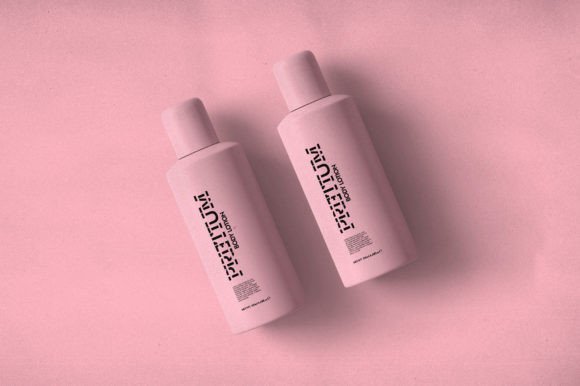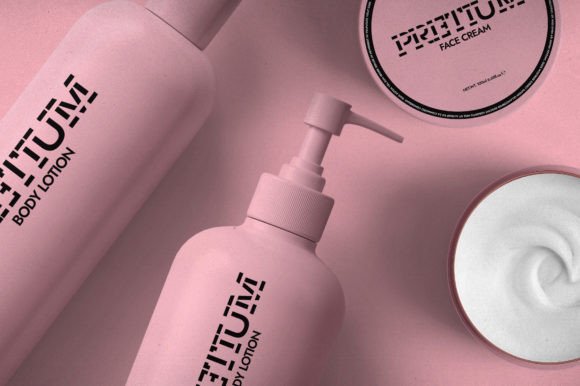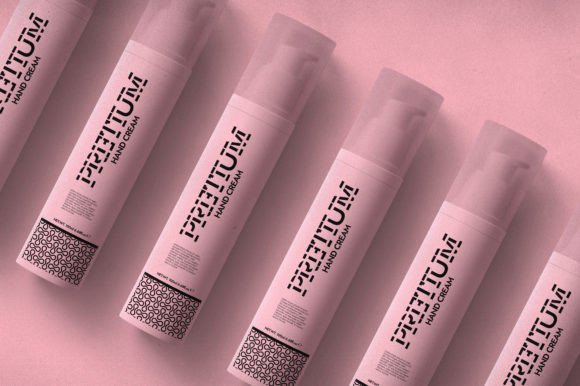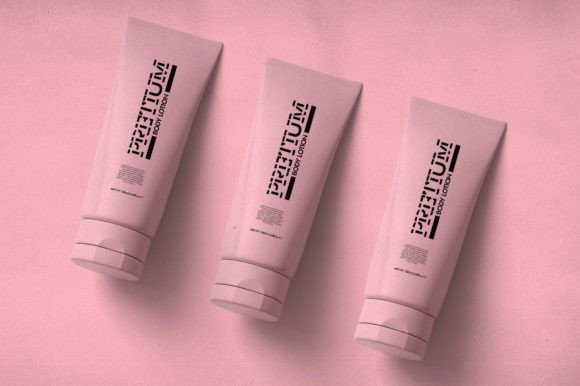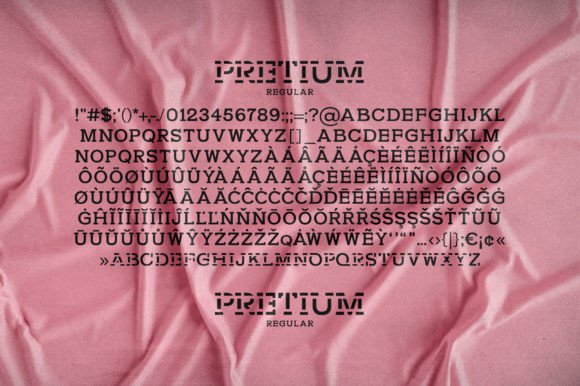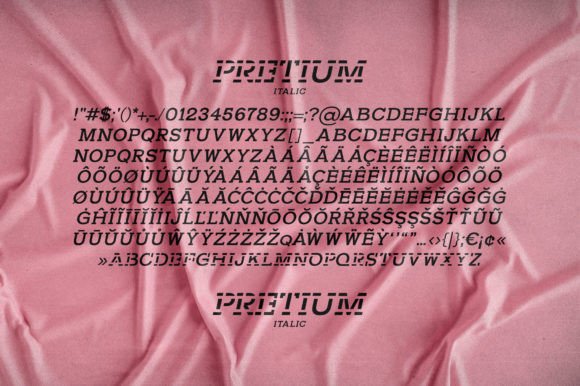
Introduction to Pretium Font
Pretium is a modern stencil slab serif typeface.
it comes with 304 glyphs, the uppercase, and the Diacritics have the classic glyph construction while the lowercase glyphs were designed to add the stencil effect It can be used in a wide range of classic and modern product design themes such as packaging design, cosmetics, perfumes, spa and beauty themes, etc.
Key Features of Pretium Font